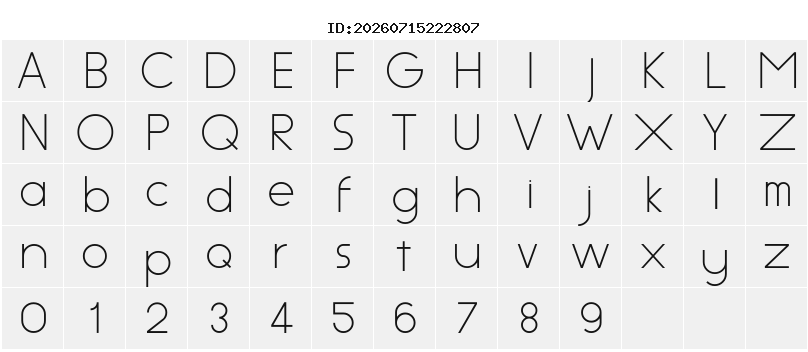
• Font Name: Aspex
Aspex.ttf is a modern, elegant sans-serif font designed for ultimate readability and visual harmony. Perfect for branding, headlines, web design, and print materials.